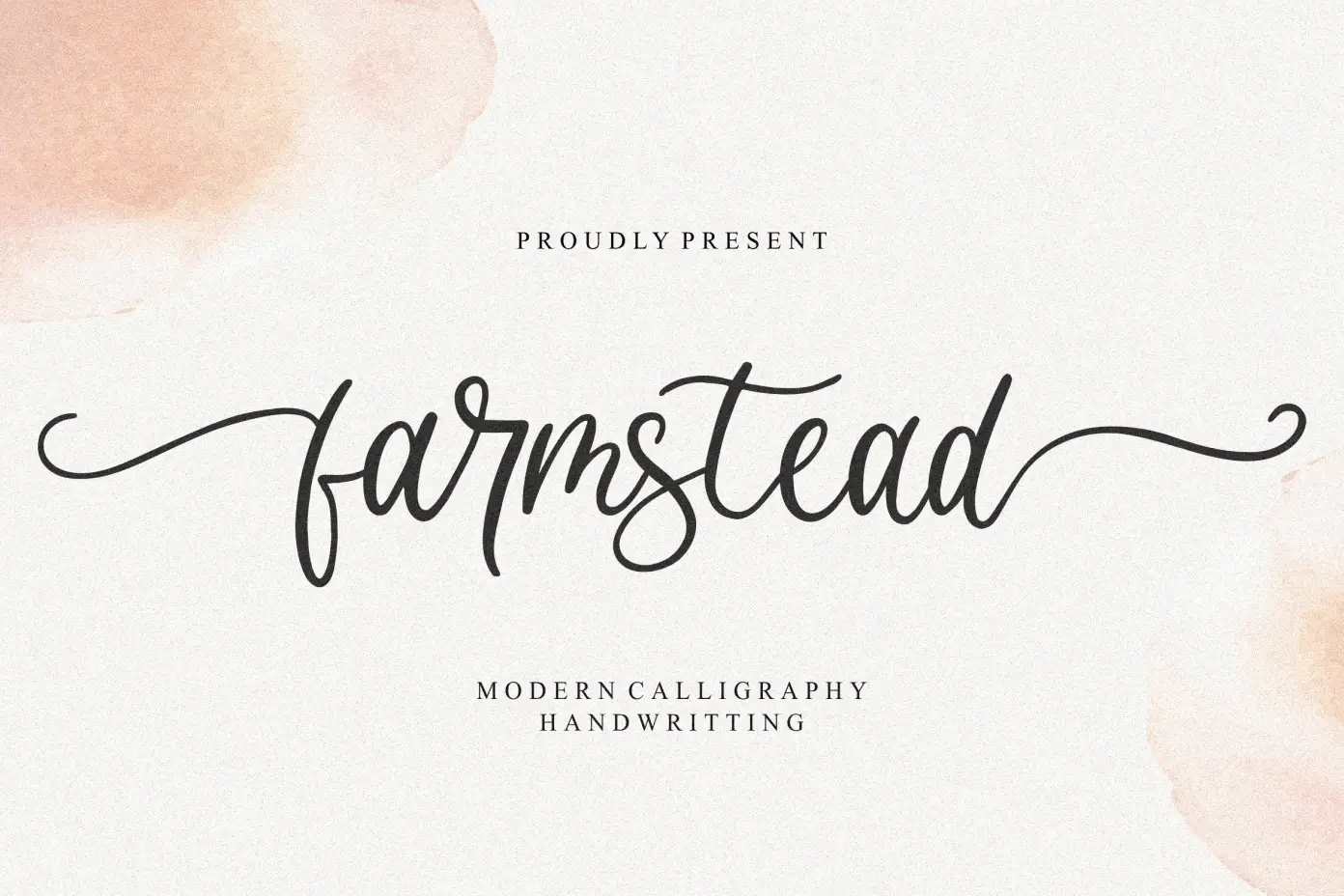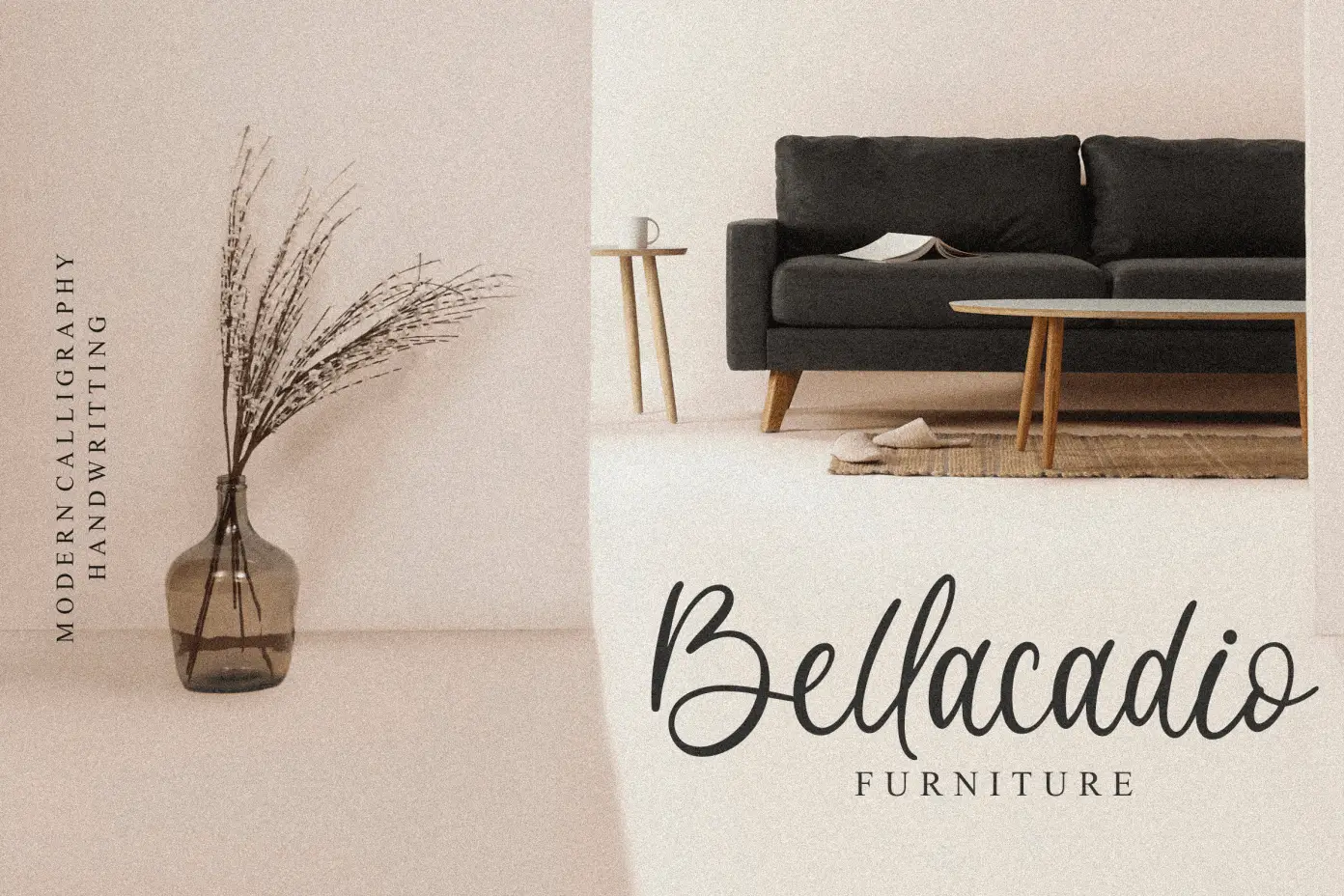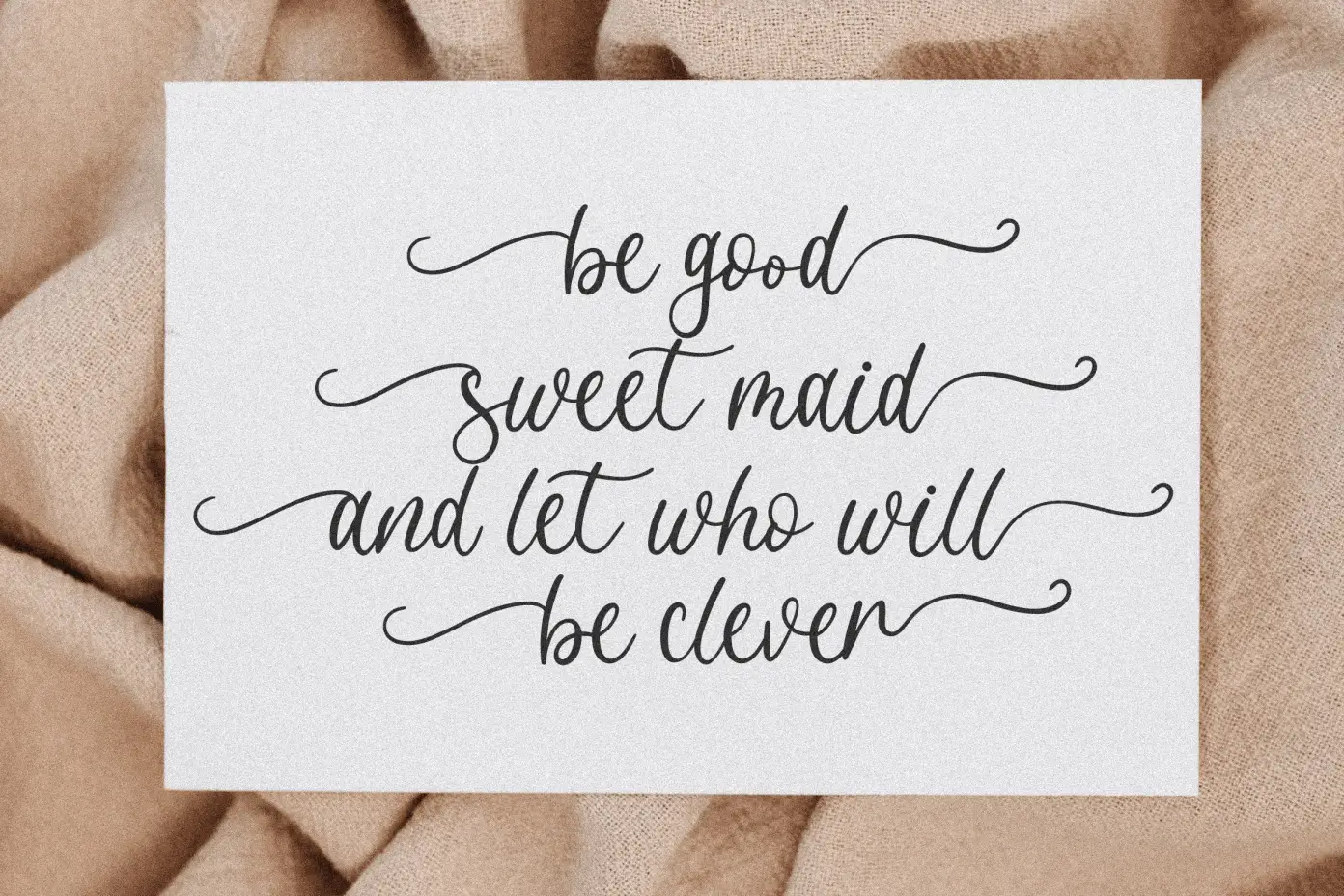
Farmstead Script Font
The Farmstead Script Font is a beautifully crafted typeface that brings a touch of rustic charm to your designs. With its elegant curves and flowing lines, this font is perfect for a variety of applications, from branding and logos to invitations and packaging.
• Stylish script design with a handmade feel
• Includes both uppercase and lowercase letters
• Ideal for branding projects, especially in the food and lifestyle sectors
• Great for creating eye-catching logos and labels
• Perfect for wedding invitations and personal stationery